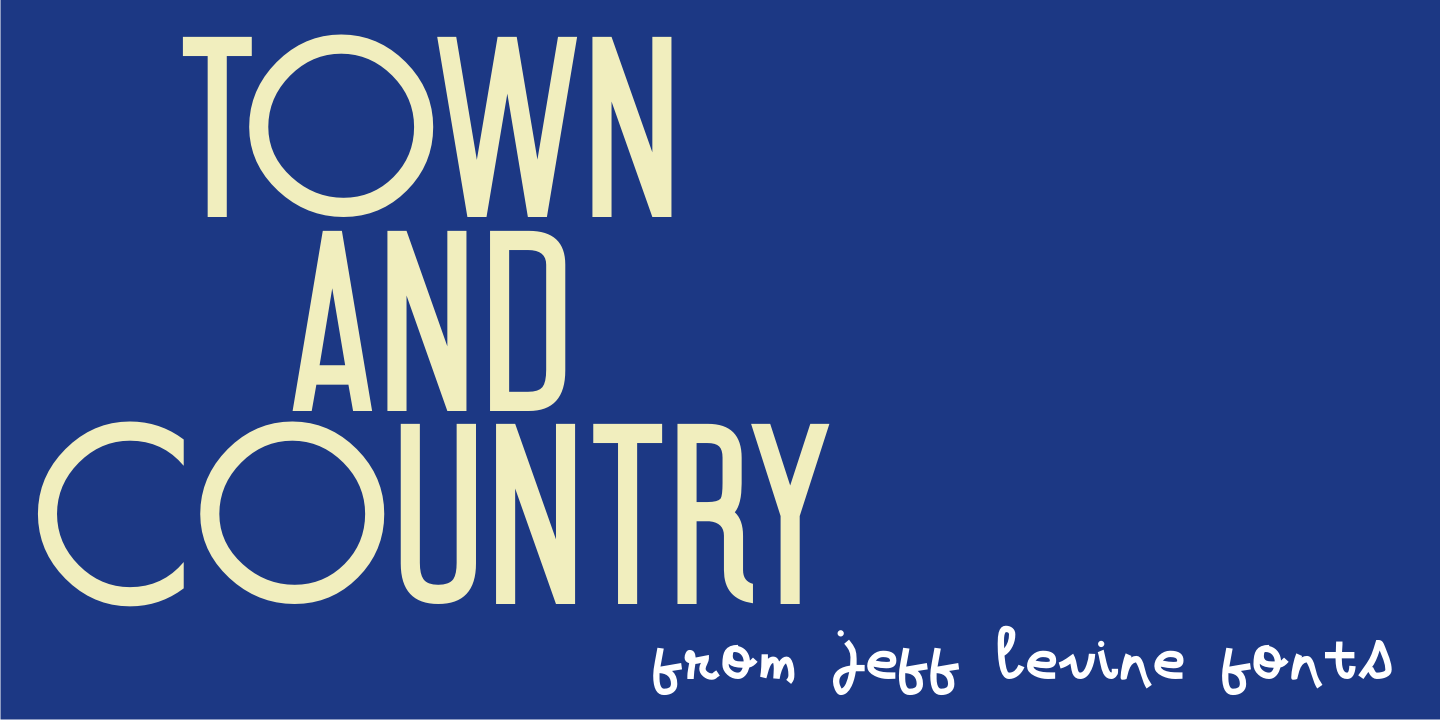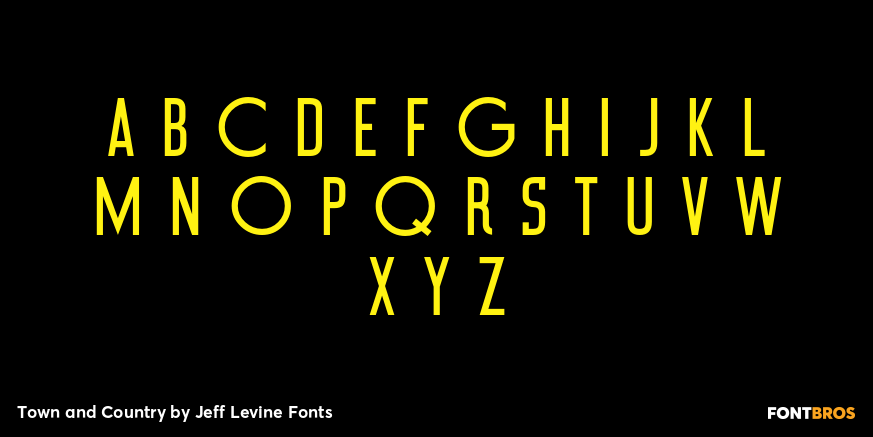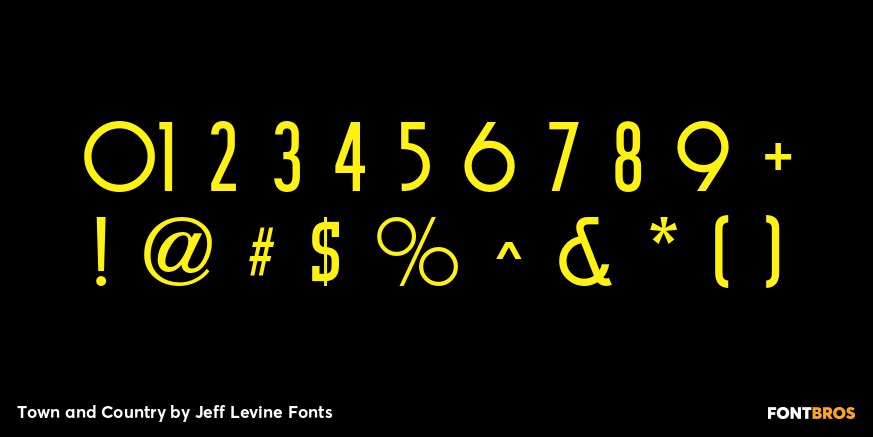
Town and Country
Town and Country JNL features a mix of block-style characters along with rounded ones found so often in the Art Deco fonts of the 1940s.
Modeled from the hand-lettered title on a piece of sheet music from that era, this unusual coupling of two distinct design styles works despite it breaking all of the obvious rules of typography.